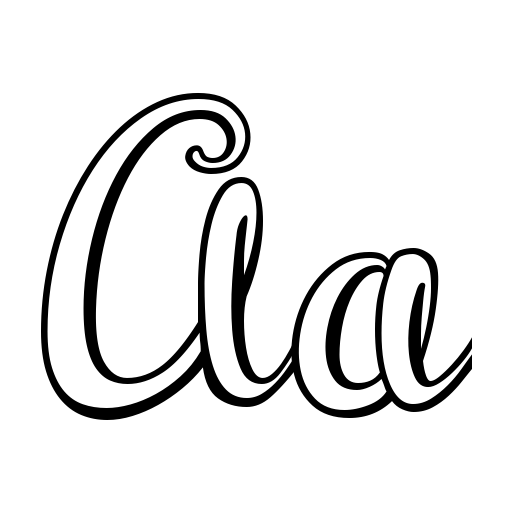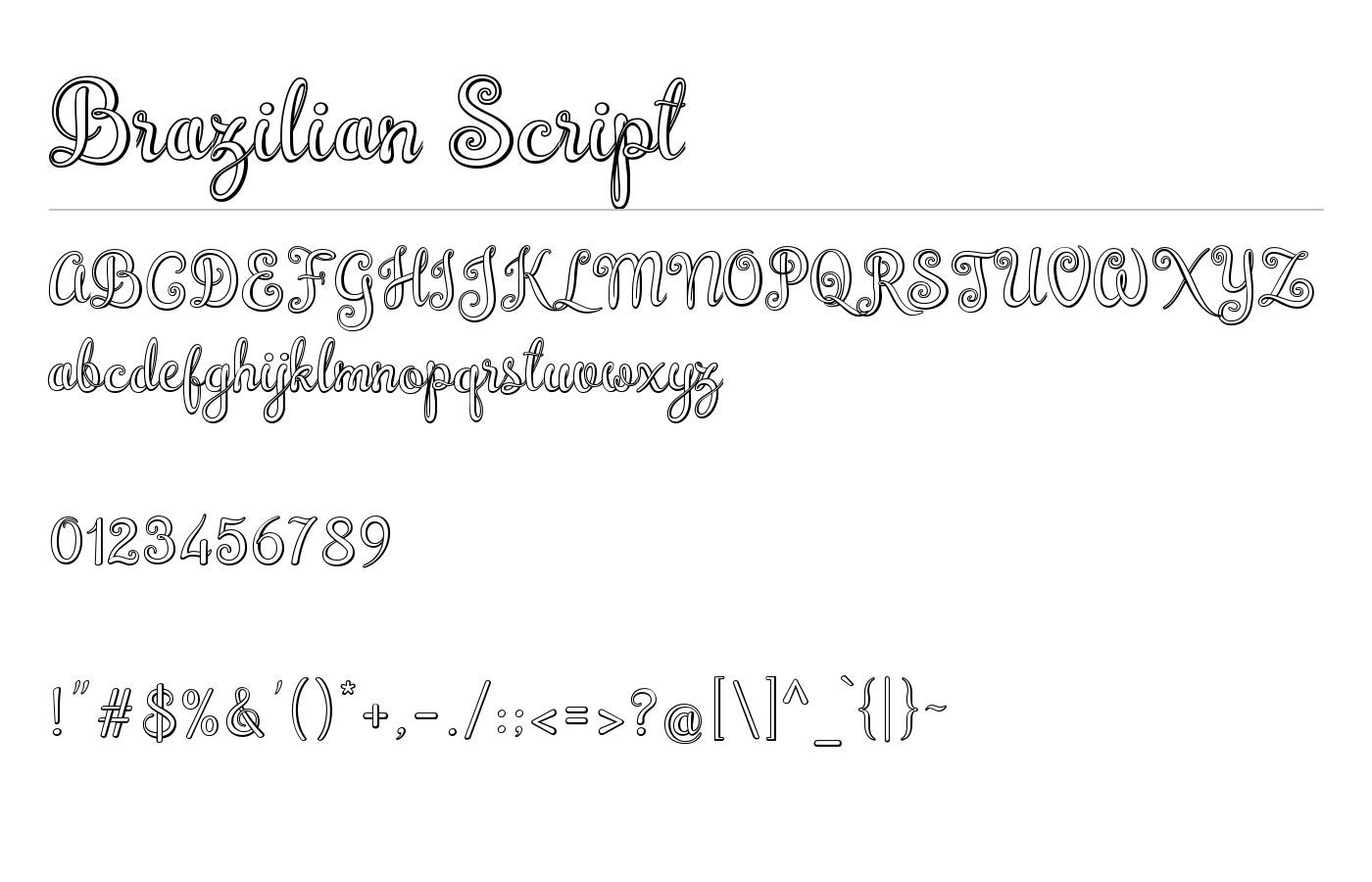
Brazilian Script is a decorative script font characterized by its elegant, swirling outlines and playful loops that give it a unique, hand-drawn charm. With its medium weight and delicate double-line stroke, it works beautifully for creative branding, invitations, and artistic headlines where a lively, sophisticated touch is desired. This font is perfect for designs that aim to stand out with a stylish, whimsical flair while maintaining readability.
Brazilian Script Font
About Brazilian Script Font